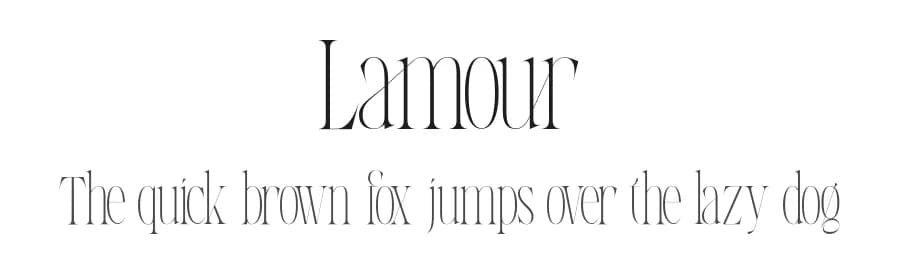
About Lamour Font
Lamour
a condensed serif font with a luxurious style designed very neatly and cleanly, it has 49 special ligatures that support this font to be more unique.
Lamour has the meaning of love which is highly appreciated and should be held in everyone's heart as this font concept is made with love.
Lamour Font is a versatile serif font that works for both headings and body text. Pair it with a contrasting sans-serif or slab serif font to add visual interest and a clear distinction between titles and body copy.